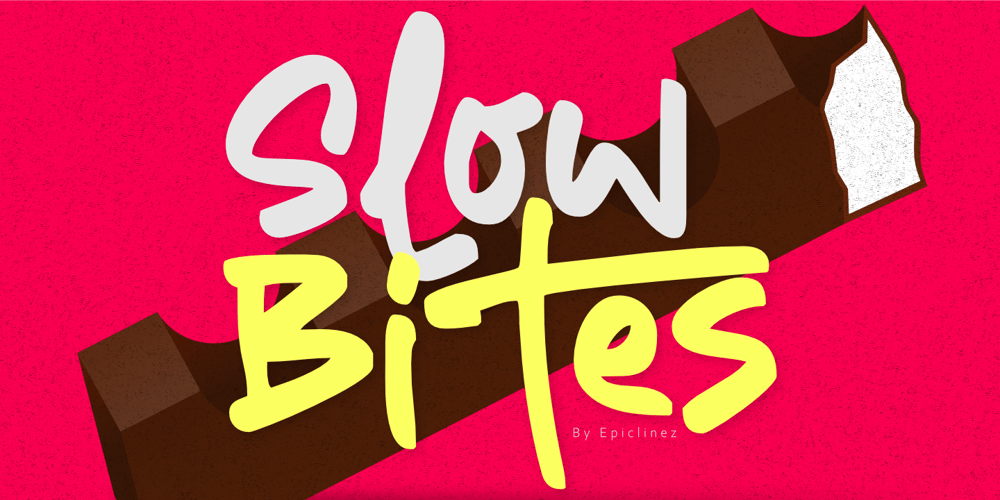
Slow Bites Font Family was designed by Aldy Sidik and published by Epiclinez. Slow Bites contains 1 styles and family package options. Hello there! Imagine you have a special pen that makes your drawings look super cool and fun. Well, Slow Bites is like that magical pen but for writing words on the computer. It adds a sprinkle of magic to your projects and makes them stand out, just like how your colorful drawings catch everyone’s eye.So, whether you’re creating a fancy logo, designing a cool box for toys, or writing the title of an awesome movie, Slow Bites is there to help you make it look extra awesome. It’s like having a friendly helper who always makes your work look amazing!Slow Bites features : Standard Latin Numbers, symbols, and punctuations Multilingual Support. Fully accessible without additional design software Simple Installations Works on PC & Mac Thank You.